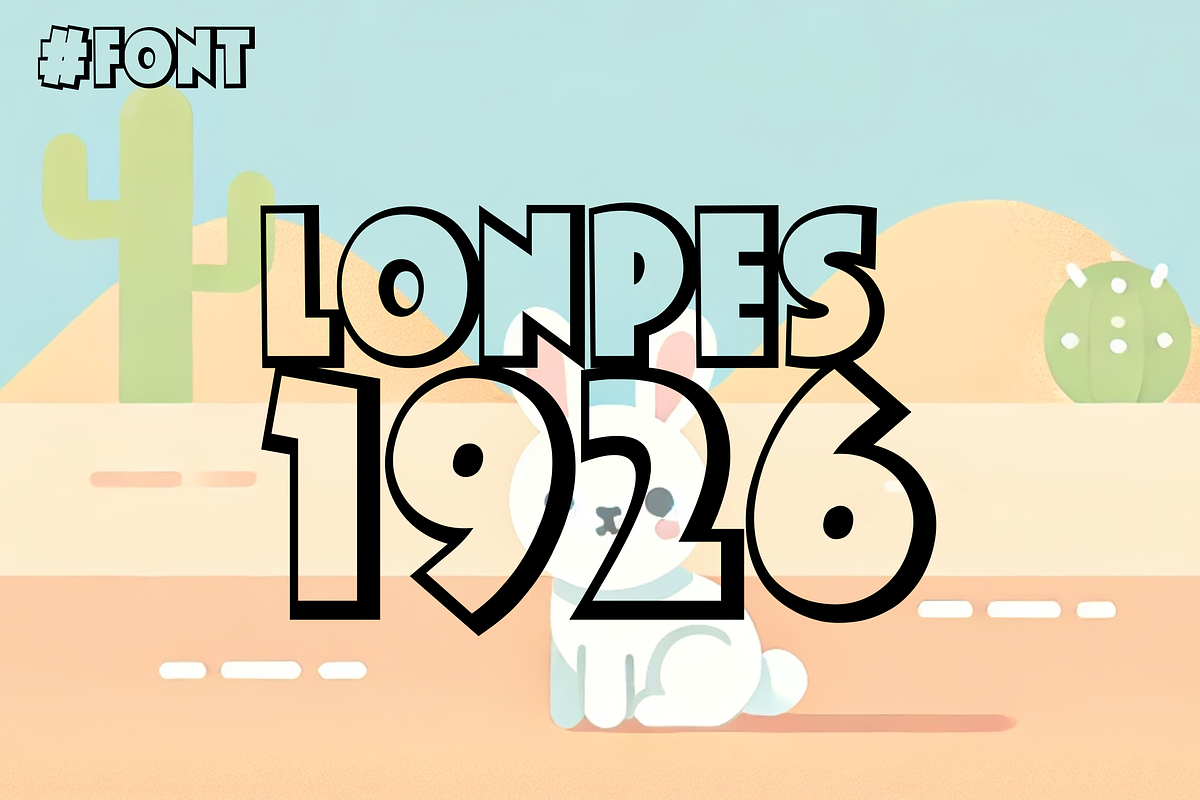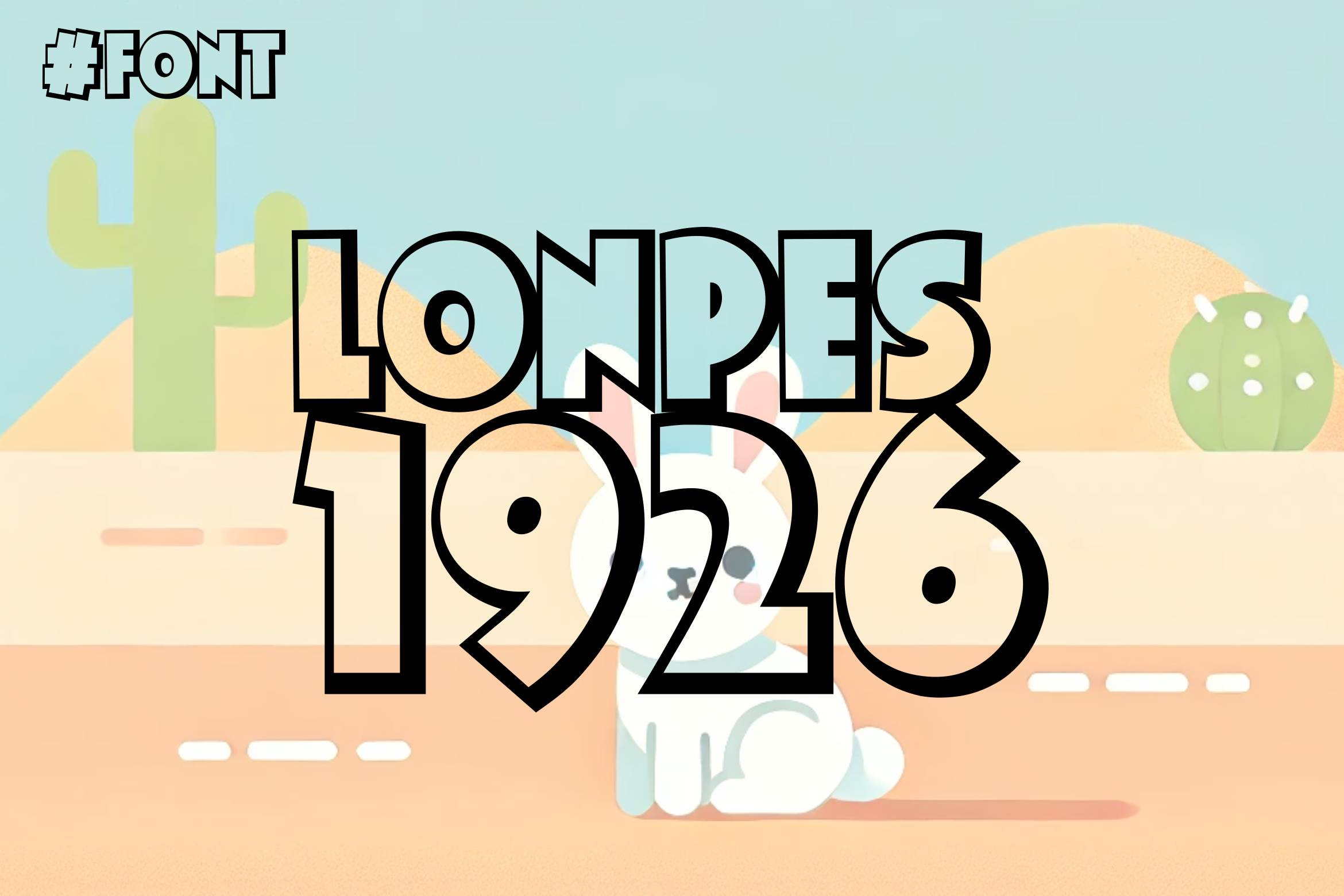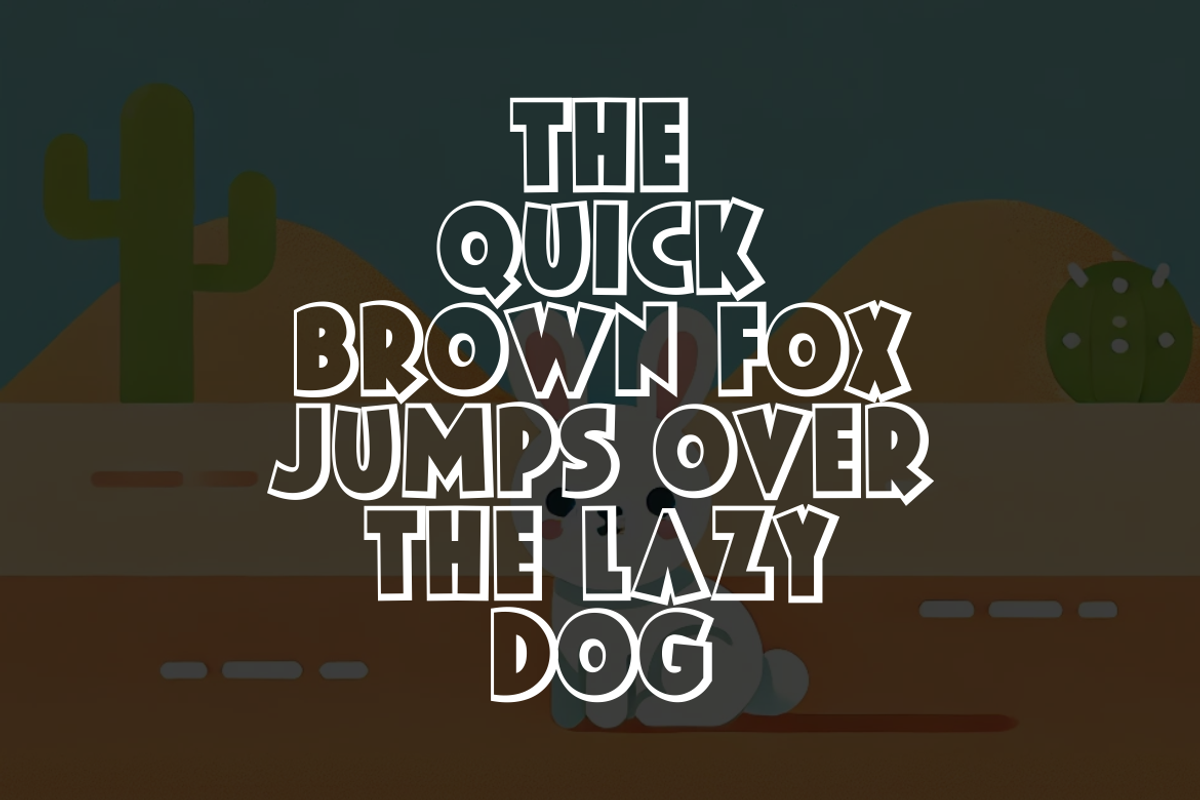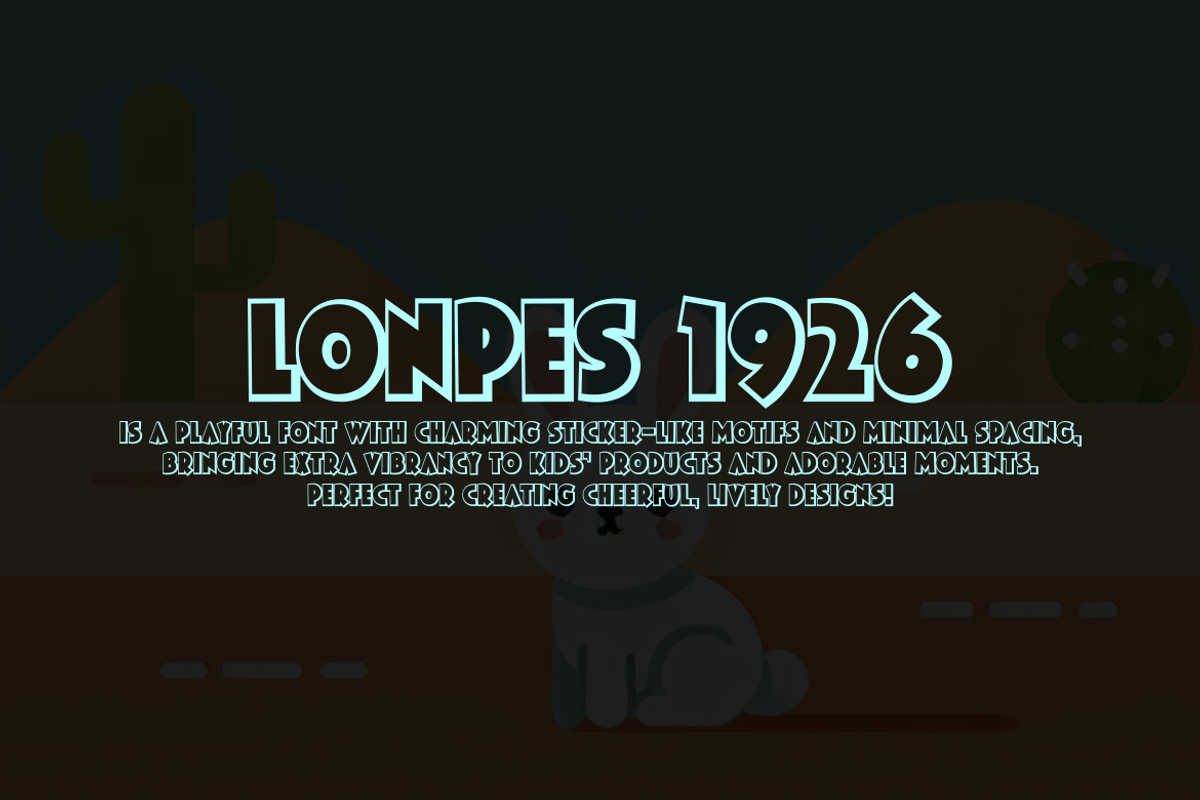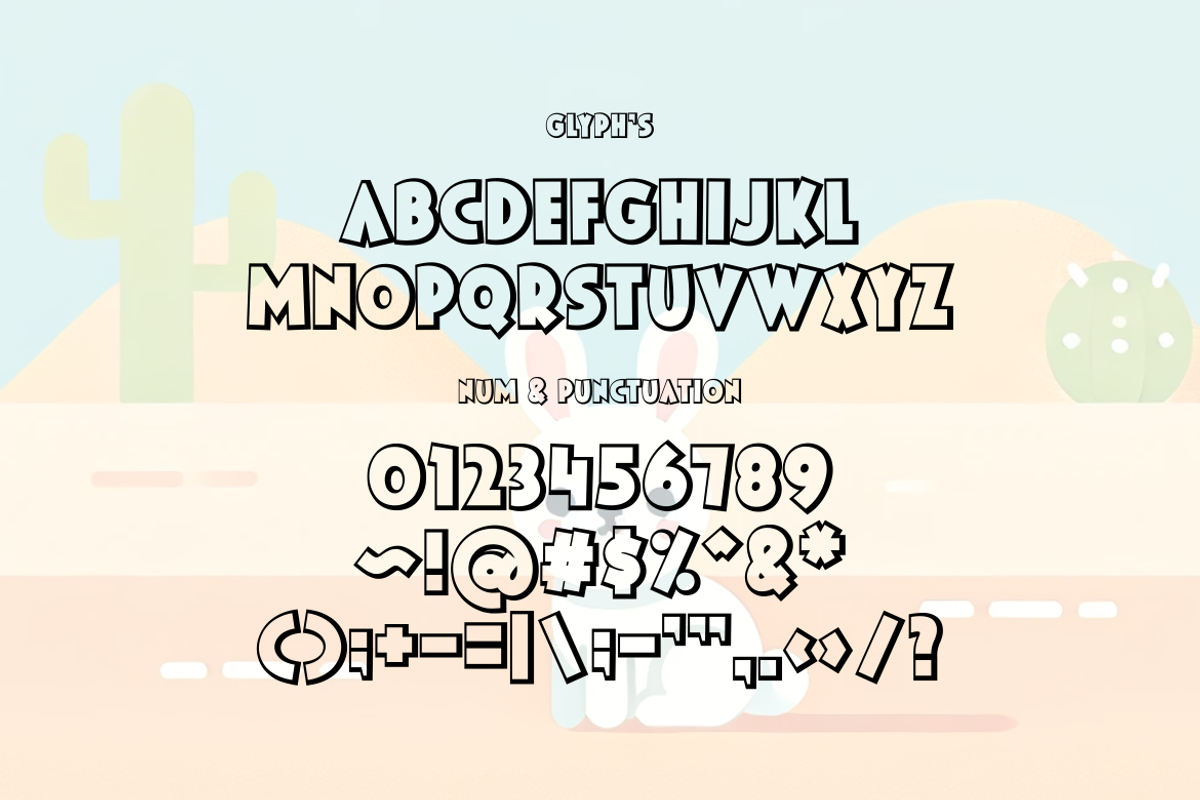
Lonpes 1926 - Kiddies Font
Lonpes 1926 is a playful font with charming sticker-like motifs and minimal spacing, bringing extra vibrancy to kids' products and adorable moments. Perfect for creating cheerful, lively designs!